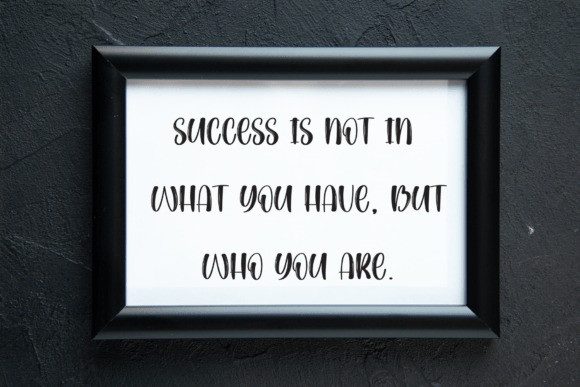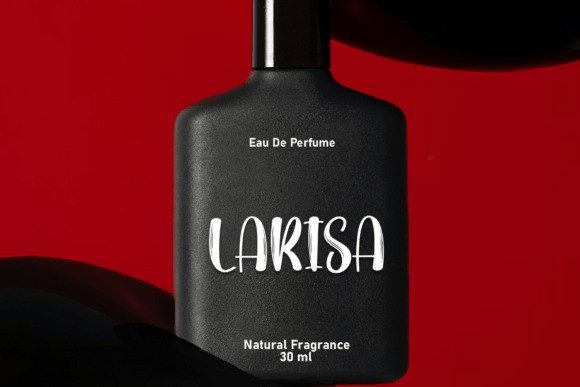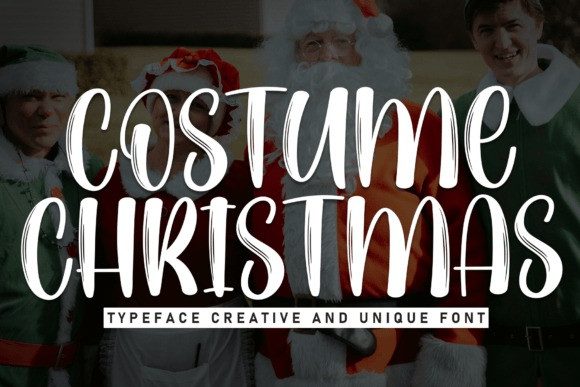
Costume Christmas Display Font
Costume Christmas Display Font is a playful and festive brush font perfect for adding a fun, handmade feel to your holiday designs. Its bold, flowing letters make it great for cards, decorations, and gift tags.